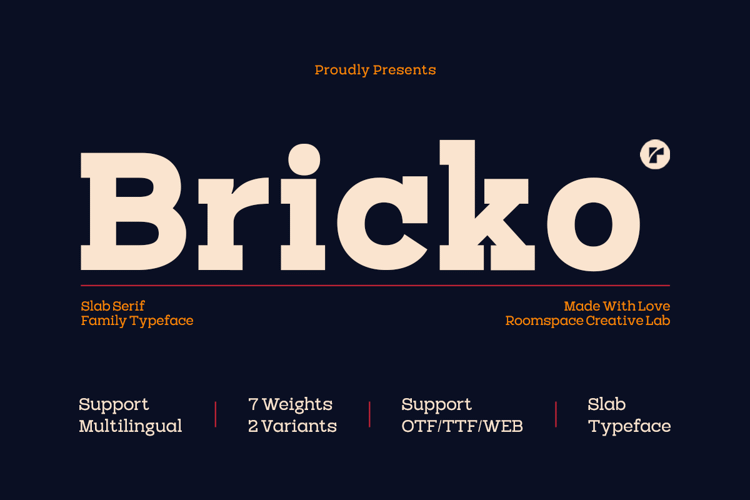
RCL Bricko Font
Bricko is a modern slab serif font family with a strong character, solid structure, and high readability. Inspired by editorial typography and contemporary branding, Bricko feels bold yet clean ideal for designs that aim to appear confident, professional, and trustworthy.